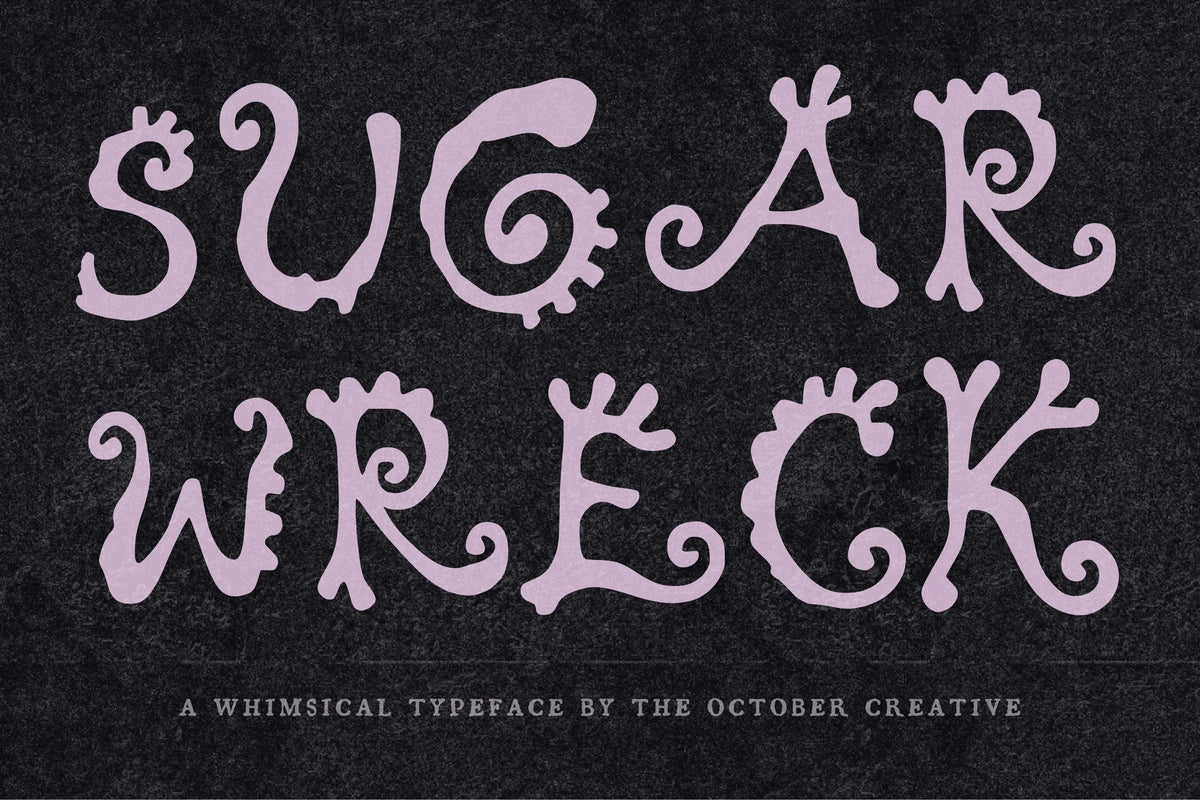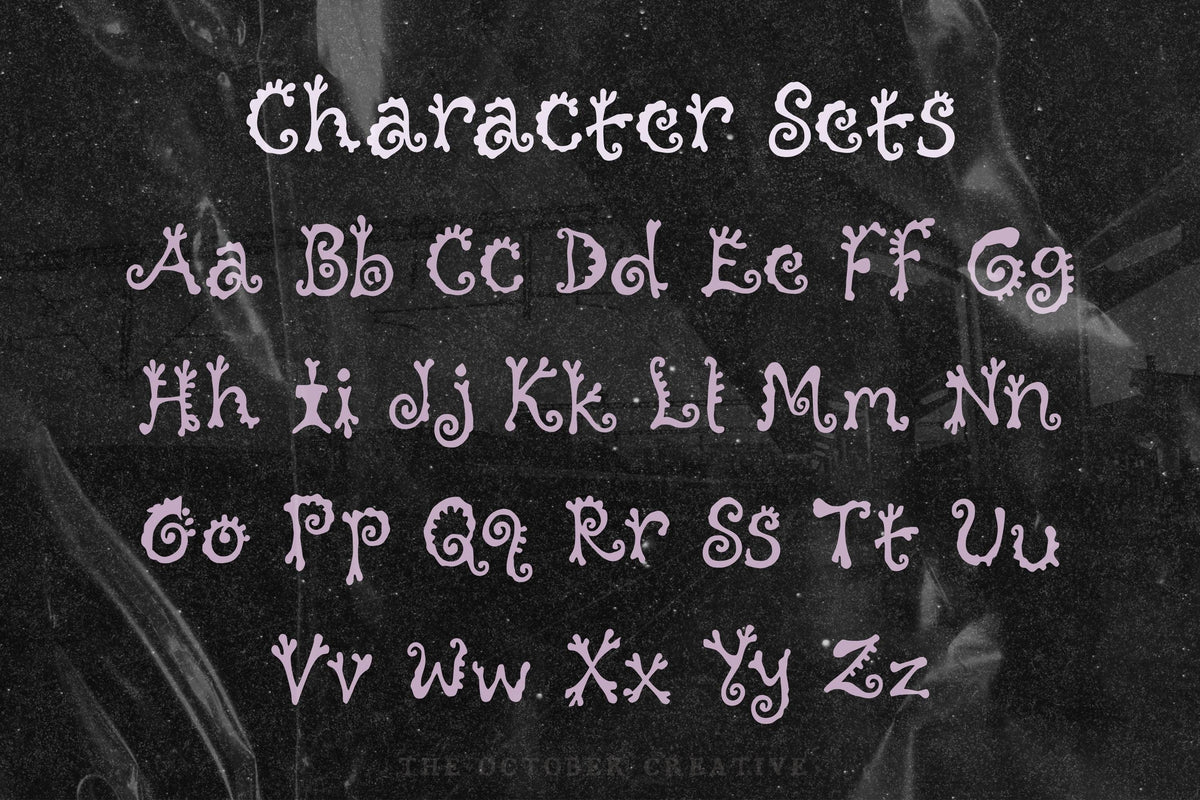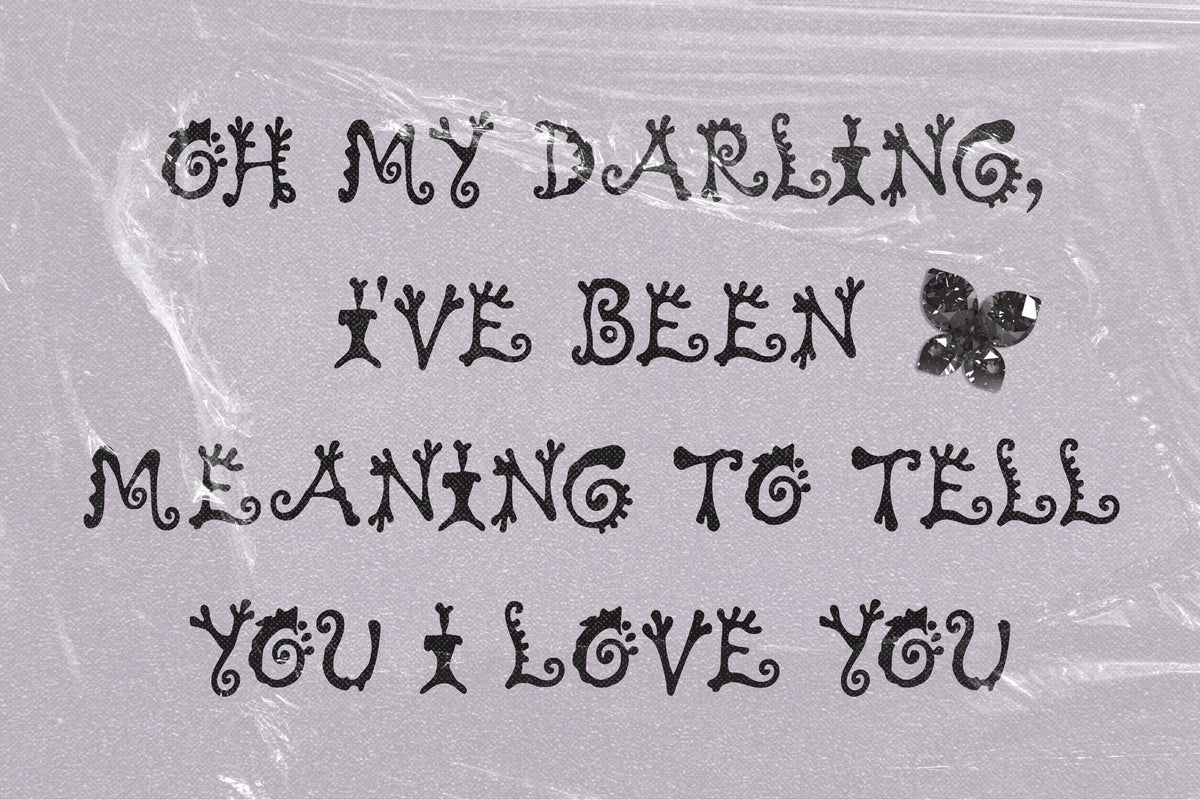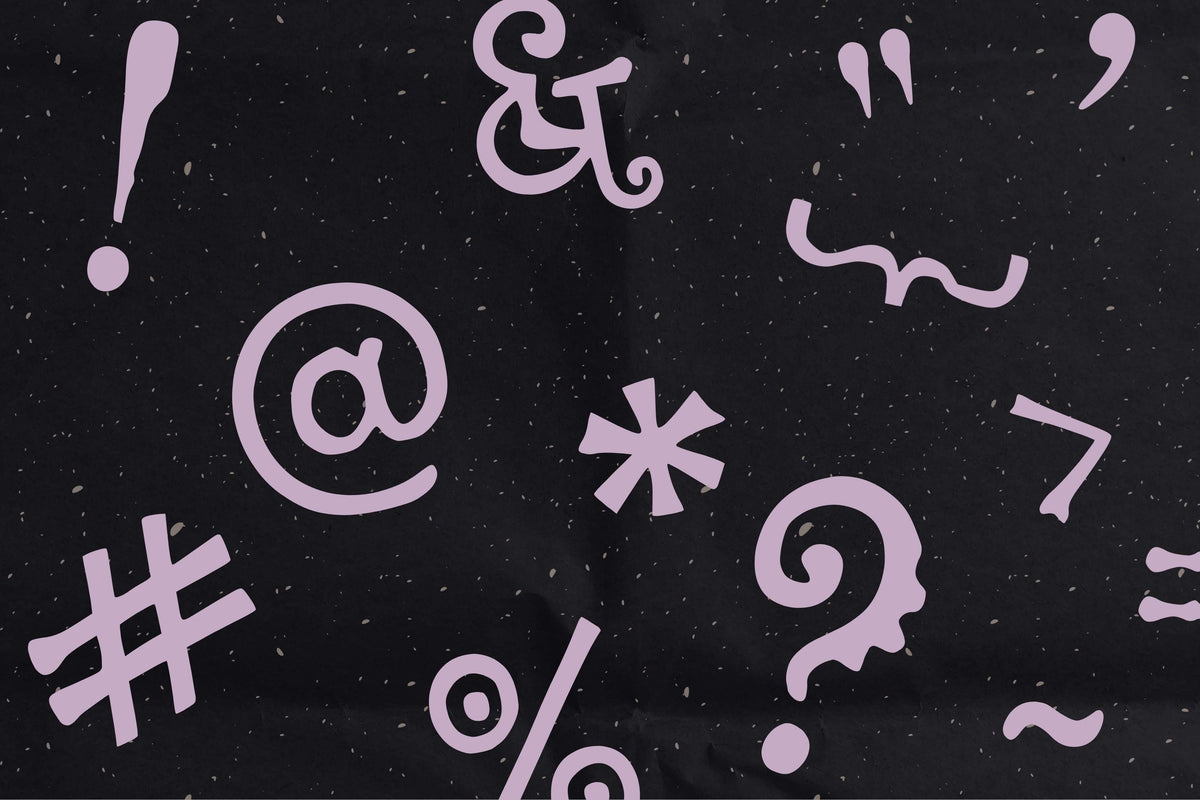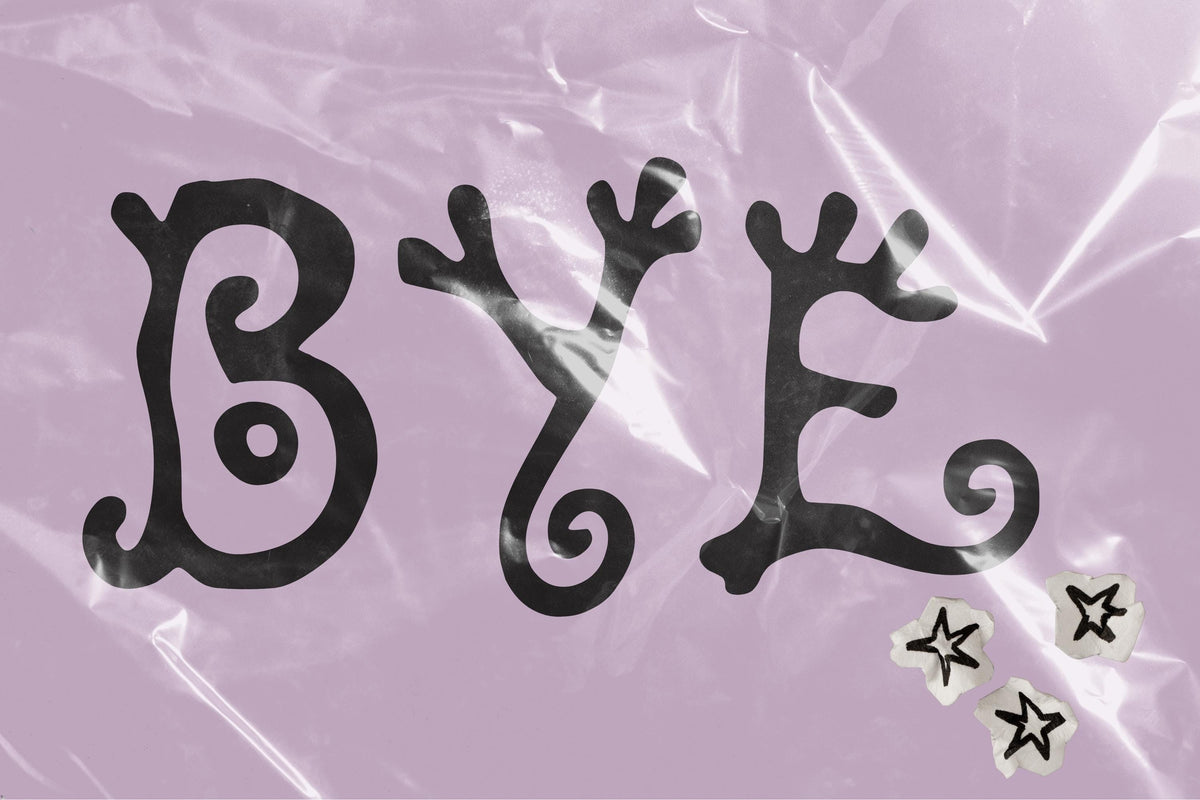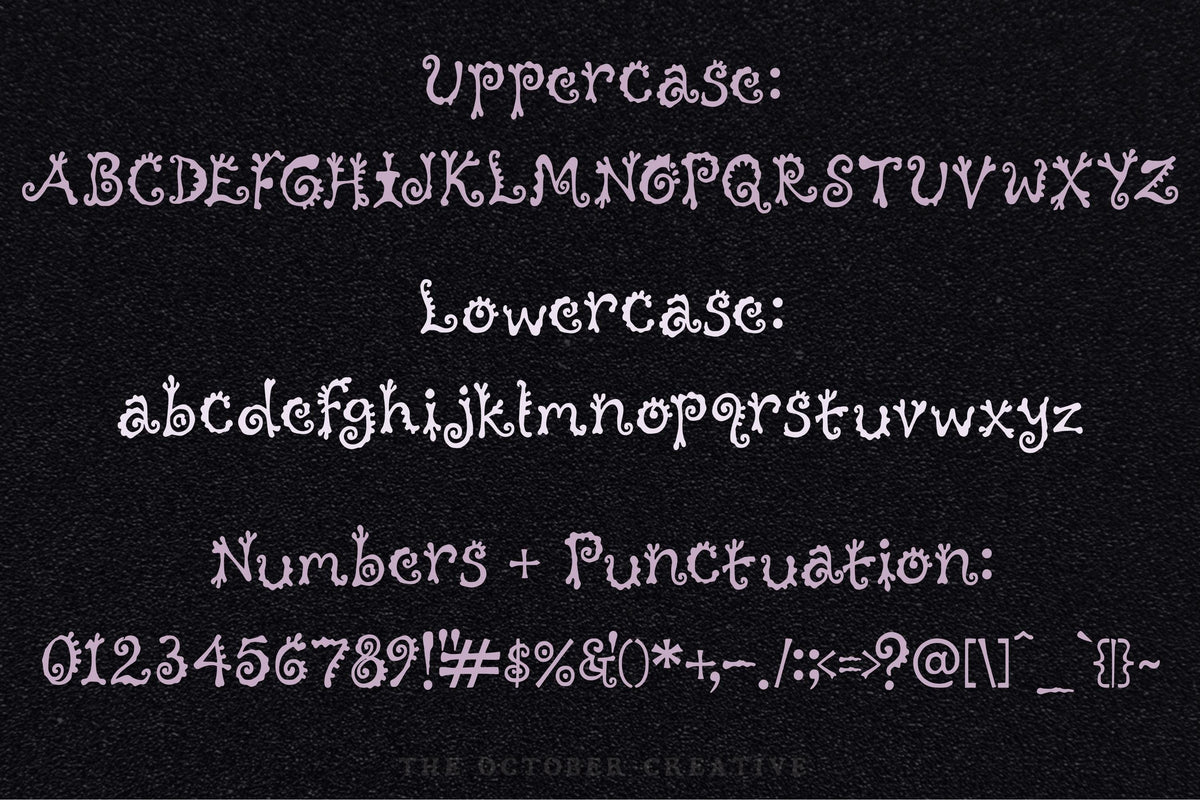
Sugarwreck Font
Sugarwreck gives chunky, rounded letters a surprising scattering of tiny thorns. It's a fun choice for bakery names, treat labels, and sweet little packages with a slightly mischievous streak.